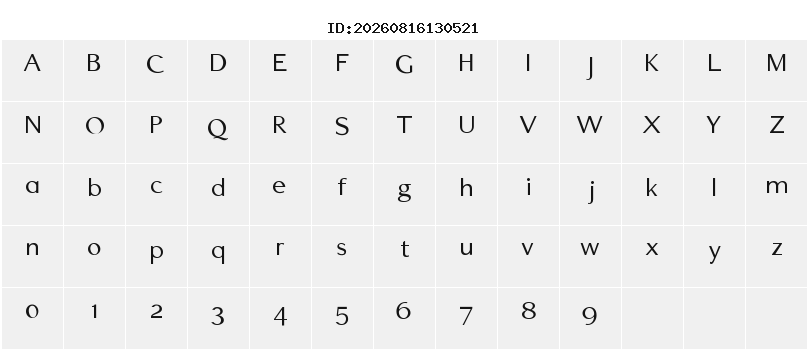
• Font Name: St Edmundsbury
• Full Font Name: St Edmundsbury Sans Regular
About St Edmundsbury.ttf
St Edmundsbury.ttf is a modern, elegant sans-serif font designed for ultimate readability and visual harmony. Perfect for branding, headlines, web design, and print materials.